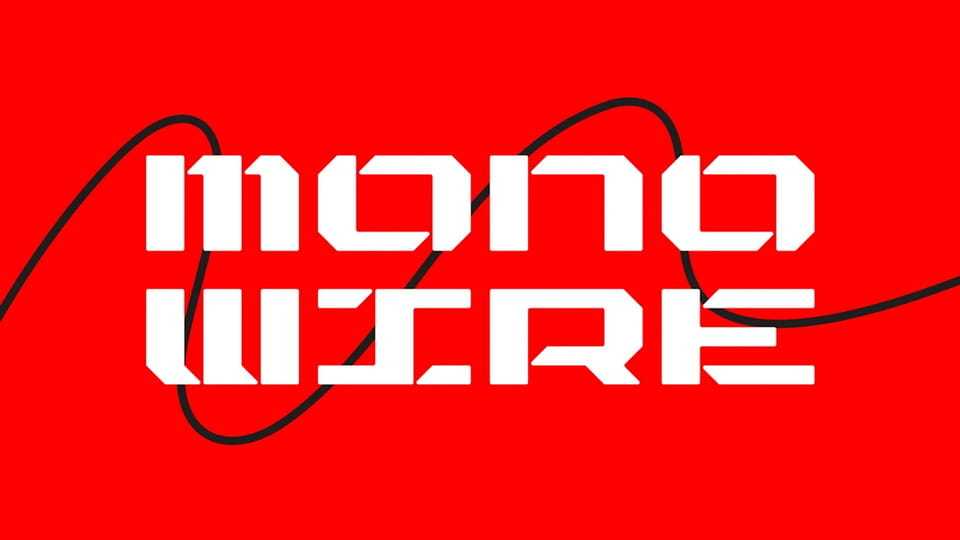
Download Monowire font, a futuristic display typeface with a geometric and technical feel. Its sharp angles and segmented letterforms create a digital and modern mood.
Designer: Matt Cole Wilson